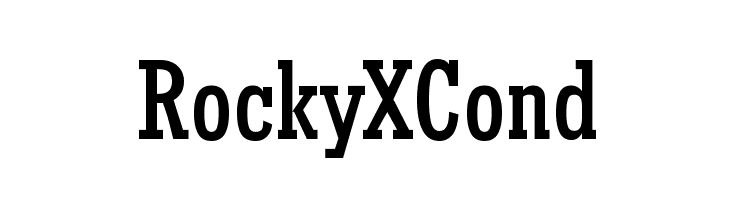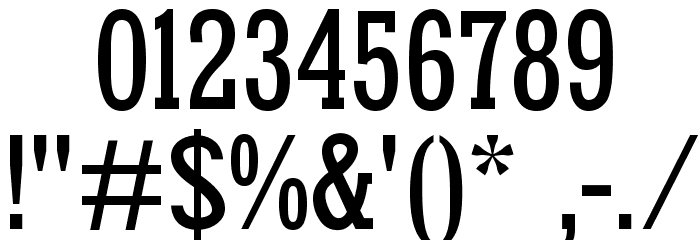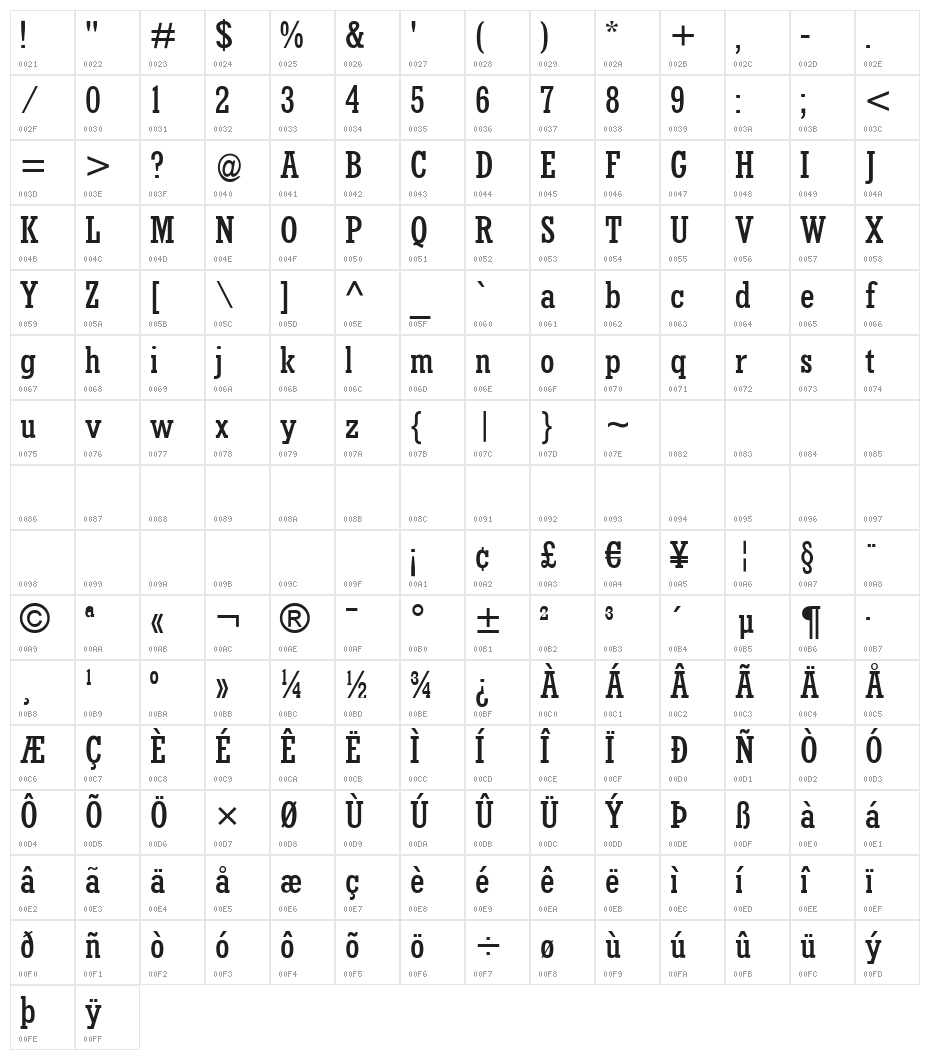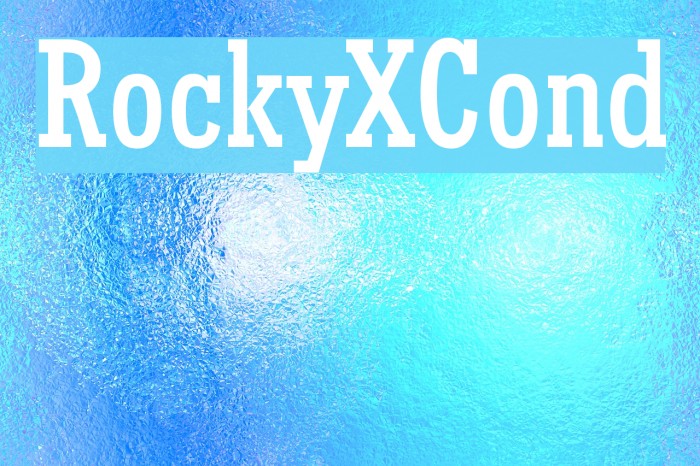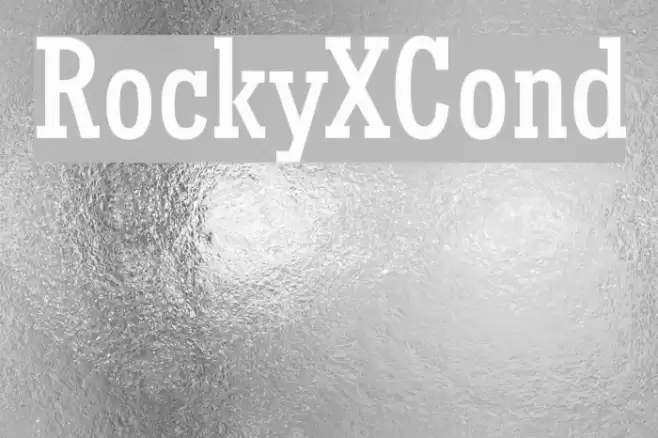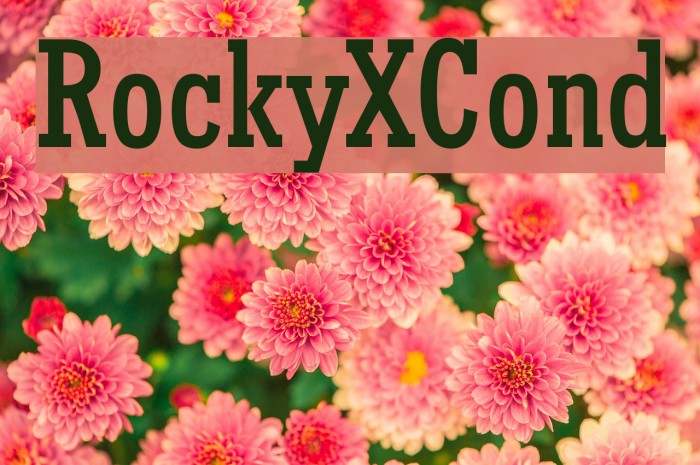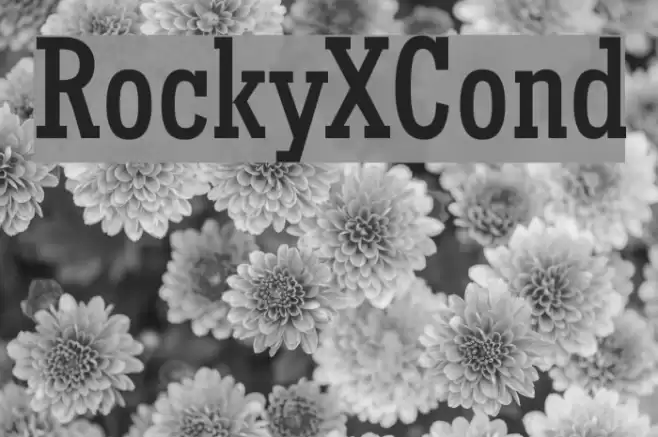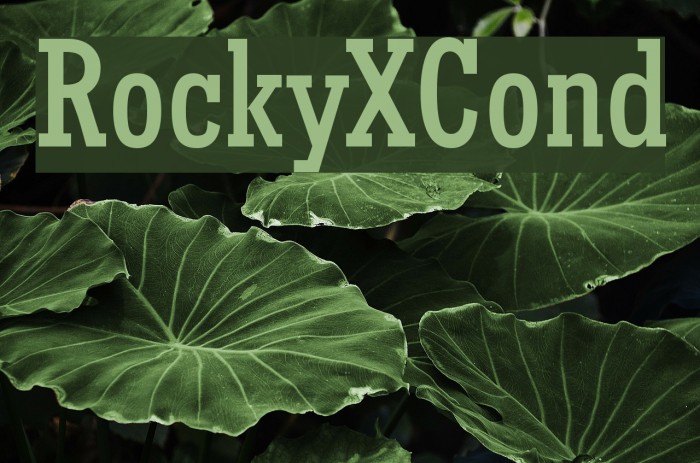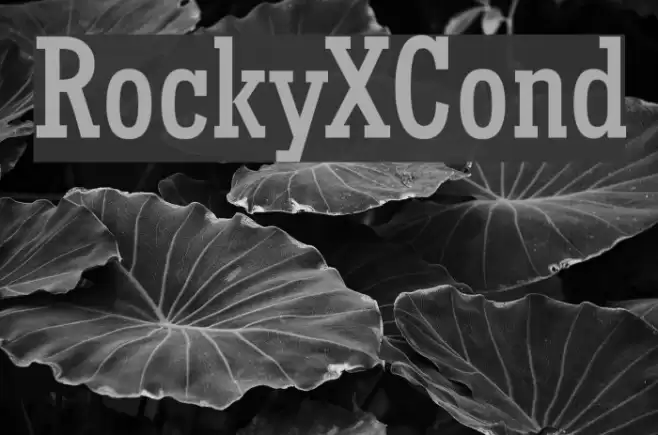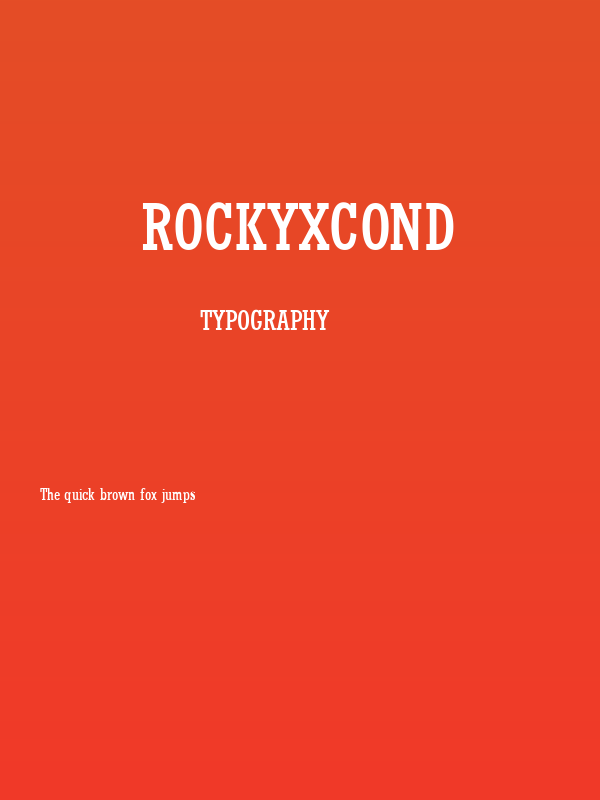
RockyXCond Font
RockyXCond Description
This font features a bold and condensed style with strong, thick strokes that convey a sense of authority and impact. The uppercase letters are tall and narrow, while the lowercase letters maintain a consistent height, offering a balanced appearance. The numerals are clear and easy to read, making them suitable for various applications. Special characters are well-defined, adding versatility to the font's usage. The overall design is clean and modern, with a touch of classic serif elements that enhance its readability and aesthetic appeal.
| Proposed Projects | Ideal for headlines, posters, branding, and any project requiring a strong visual impact. |